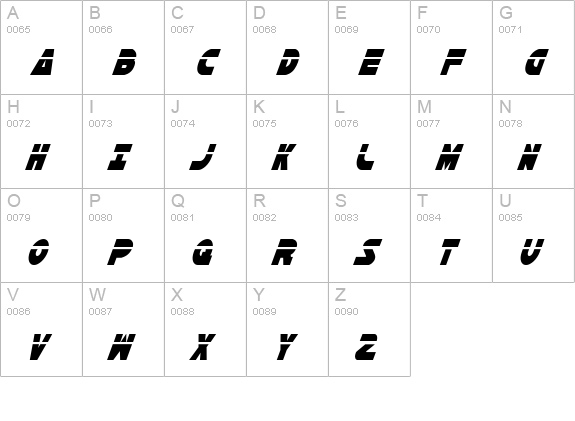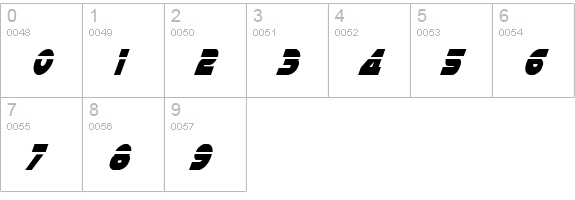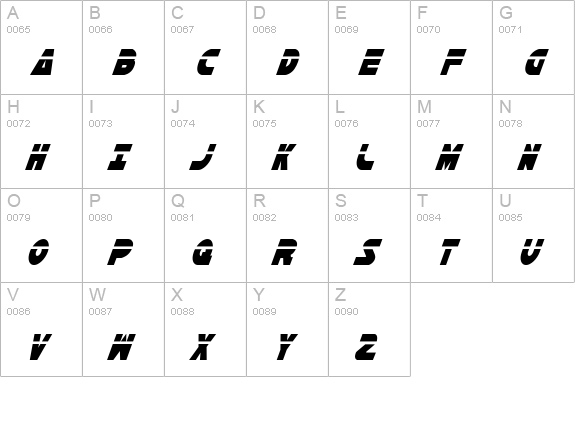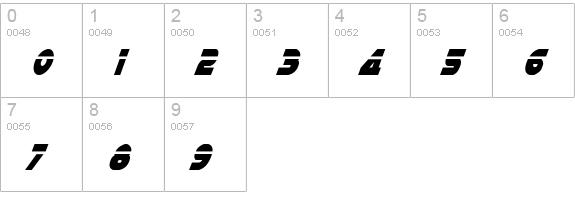
Han Solo Cond Laser Italic Font Details
Han Solo Cond Laser Italic is a distinctive, condensed-width, italic variant in the Han typeface family \xE2\x80\x94 well suited to design and typography projects.
Han Solo Cond Laser Italic font is a stunning display font that exudes an aura of adventure and excitement. Inspired by the iconic character from the Star Wars franchise, this font captures the essence of Han Solo's daring spirit and rebellious nature. With its sleek and futuristic design, Han Solo Cond Laser Italic font is perfect for capturing attention and making a bold statement. Its condensed form adds a touch of modernity, while the italic style adds a hint of elegance and intrigue. This font is not only visually captivating but also highly versatile. It can be used in a wide range of design projects such as movie posters, book covers, branding, and more. Whether you're a graphic designer, a filmmaker, or a Star Wars enthusiast, Han Solo Cond Laser Italic font is sure to elevate your creations to a whole new level. One of the best things about Han Solo Cond Laser Italic font is that it is available for free. Yes, you heard that right! This amazing font can be freely downloaded at FontsMarket.com. So, you can bring the essence of Han Solo's adventurous spirit into your designs without any cost. Don't miss out on the opportunity to add this remarkable font to your collection. Download Han Solo Cond Laser Italic font today and let your creativity soar to new heights. May the force be with you!